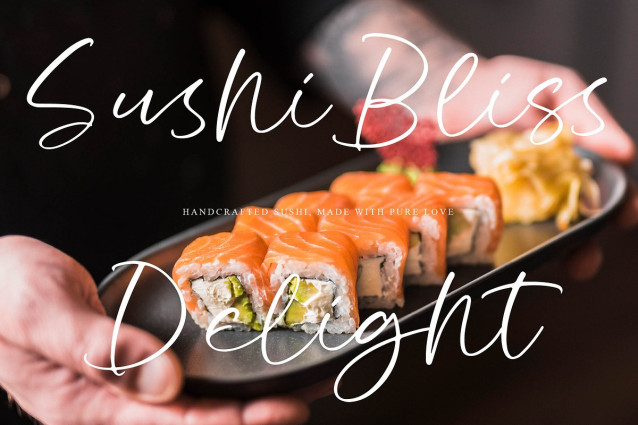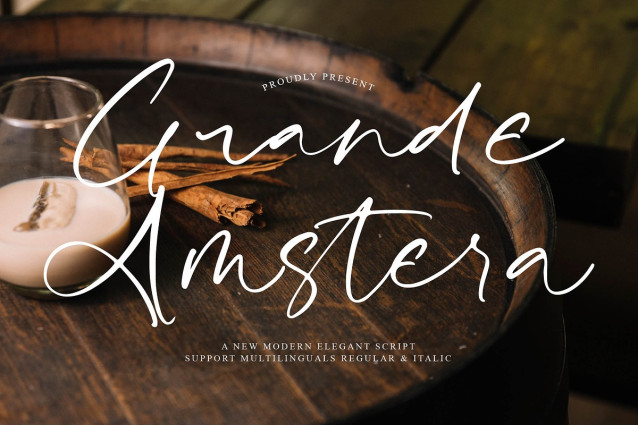
Grande Amstera Font
Grande Amstera Font – A New Modern Elegant Script Font, from Operatype, perfect for any project like: logos, branding projects, homewares designs, product packaging, mugs, quotes, posters, shopping bags, t-shirts, covers books, business cards, invitation cards, greeting cards, labels, photography, watermarks, special events and all your other luxury projects that require a premium taste.